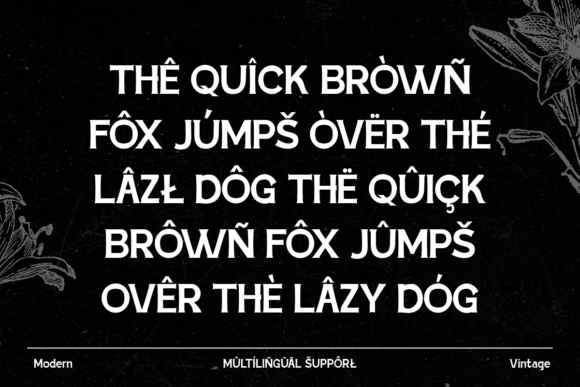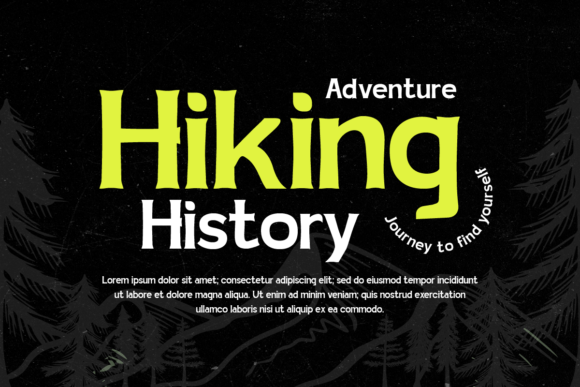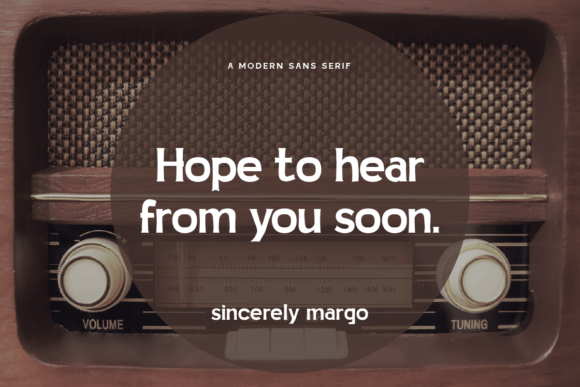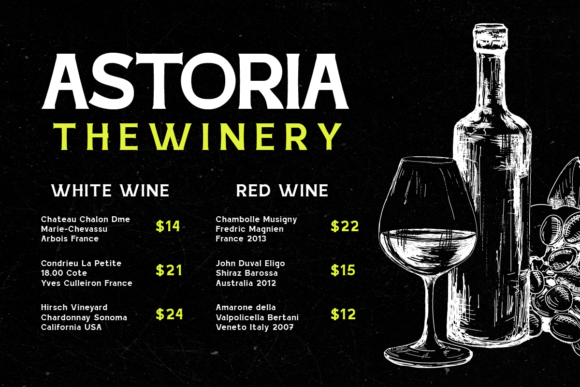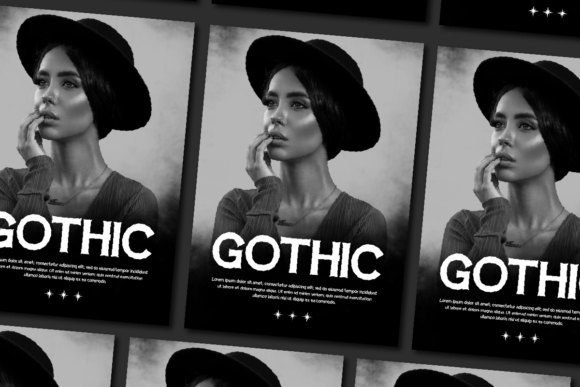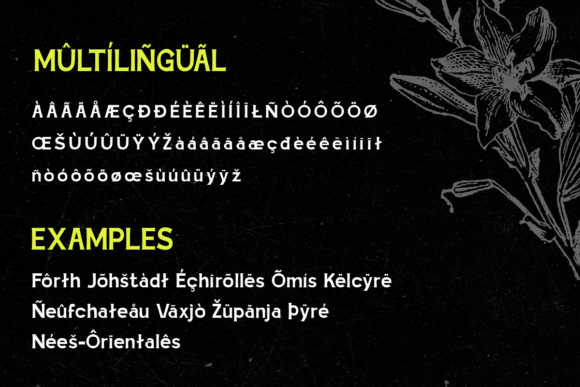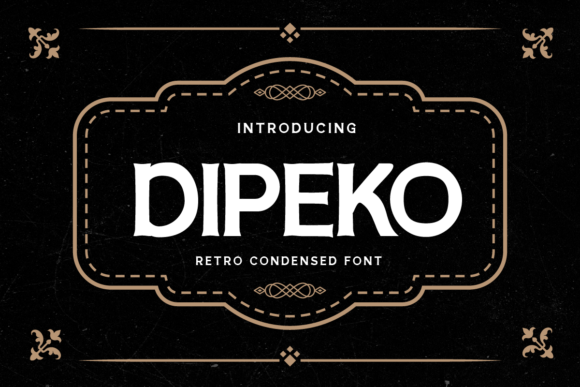
Introducing Dipeko Font: The Ultimate Retro-Modern Typeface
In the world of typography, fonts play a crucial role in conveying the tone and personality of a brand. With the ever-growing demand for unique and eye-catching designs, designers and crafters are constantly on the lookout for innovative typefaces that can help their projects stand out. This is where Dipeko Font comes into play – a bold, edgy, and retro-modern typeface that is sure to make a statement.
The Retro-Modern Vibe of Dipeko
Dipeko Font is a masterful blend of vintage and modern design elements, creating a unique typeface that is both nostalgic and contemporary. Its bold lines, sharp edges, and distinctive curves evoke a sense of nostalgia, reminiscent of classic posters and advertisements from the past. At the same time, its clean and sleek design ensures that it remains modern and relevant, perfect for a wide range of design applications.
Perfect for Eye-Catching Designs
Whether you’re designing a logo, branding materials, or social media posts, Dipeko Font is the perfect choice. Its bold and edgy design ensures that your projects will grab attention and make a lasting impression. The font’s versatility also makes it suitable for a wide range of design styles, from minimalist and sleek to bold and playful.
Why Choose Dipeko Font?
So, what sets Dipeko Font apart from other typefaces? Here are just a few reasons why designers and crafters are falling in love with this unique font:
• Unique Retro-Modern Style: Dipeko Font boasts a distinctive retro-modern style that is sure to make your projects stand out.
• Bold and Edgy Design: The font’s bold lines and sharp edges create a striking visual effect that demands attention.
• Versatile: Dipeko Font is perfect for a wide range of design applications, from logos and branding materials to social media posts and more.
• Easily Readable: Despite its bold design, Dipeko Font remains easily readable, even at smaller sizes.
Use Cases for Dipeko Font
Dipeko Font is perfect for a wide range of design projects, including:
• Logo Design: Create a bold and eye-catching logo that perfectly captures the personality of your brand.
• Branding Materials: Use Dipeko Font to create consistent and recognizable branding materials, such as business cards, brochures, and more.
• Social Media Posts: Make your social media posts stand out with Dipeko Font’s bold and edgy design.
• Advertising: Use Dipeko Font to create striking advertisements that grab attention and drive results.
Tips for Using Dipeko Font
To get the most out of Dipeko Font, here are a few tips to keep in mind:
• Experiment with Different Sizes: Dipeko Font looks great at a wide range of sizes, from small and subtle to large and bold.
• Pair with Other Fonts: Try pairing Dipeko Font with other fonts to create a unique and visually appealing design.
• Use Bold and Italic Variations: Take advantage of Dipeko Font’s bold and italic variations to add emphasis and create visual interest.
In conclusion, Dipeko Font is a unique and versatile typeface that is perfect for designers and crafters looking to add a retro-modern touch to their projects. With its bold and edgy design, easily readable text, and wide range of use cases, Dipeko Font is sure to become a go-to choice for anyone looking to make a statement. So why wait? Get noticed and make a statement with the Dipeko font today!